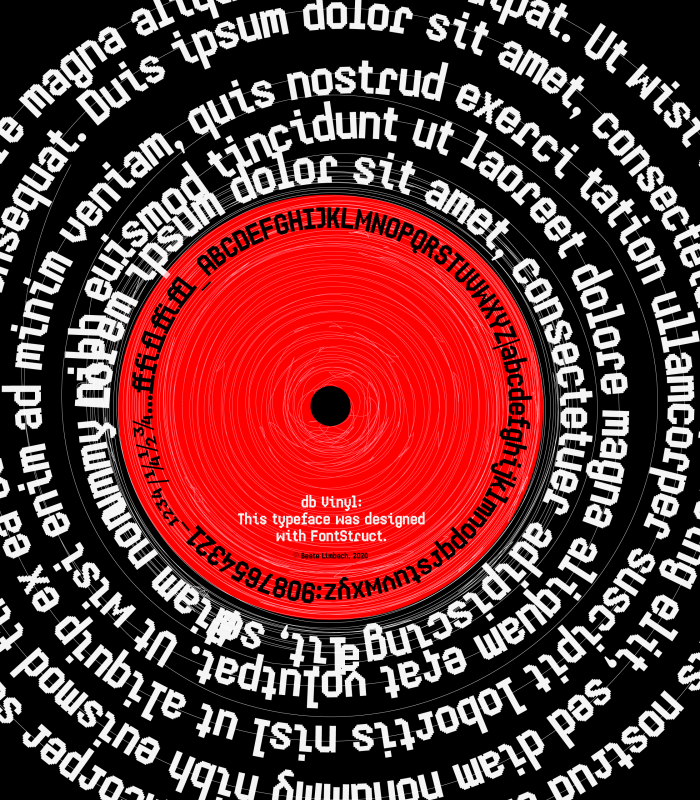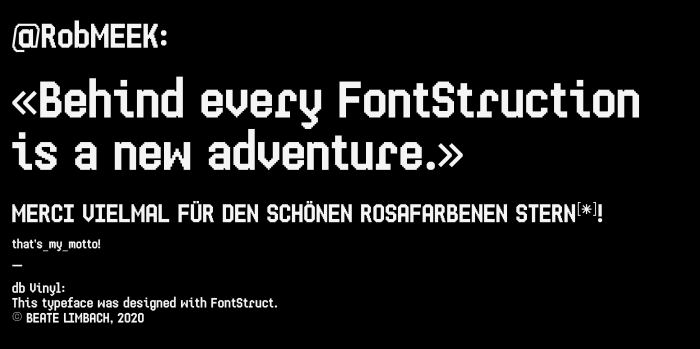
Congratulations! FontStruct Staff have deemed your FontStruction worthy of special mention. “db Vinyl” is now a Top Pick.
really good job!
Another refreshing "bea(u)te(y)", pixelated this time. I like a lot the sample (and your samples in general): the spiral text with the "Lorem Ipsum", the alphabet glyphs around the paper at the center of the disk, the colours, I can ear the music playing with it... It's very grateful. And for dessert, your "y" looks like mine in zilverbullet. Just great. ❤️!
You have so many wonderful fonts, but I haven't seen that. Sorry, I didn't mean to copy anything. The "y" came out like that - a derivative of the "g". But I hope we understand each other ??
An excellent clean pixel font and another great sample!
@Beate: Hit me with your rhythm "y", Maestra! (remembering an old punk song of my tender youth). And about the "y" affaire, I've shown the similarity with obvious pride ❣️! Deal?
Pretty nice pixel letters you've got there!
Very cool!
Sorry, you cheated on the ogoneks.